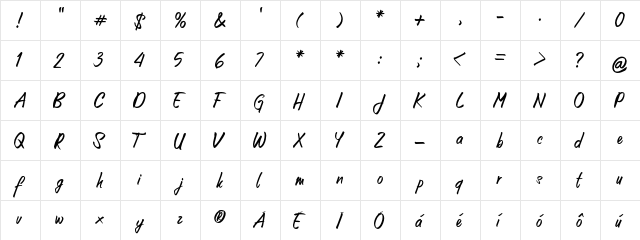
Unforgotten Regular
| Foundry | Unatype |
| Designer | Onne Hermaone |
Design Context for Unforgotten Typeface
Unforgotten is a composed and adaptable typeface that performs quietly and consistently across a wide range of design contexts.